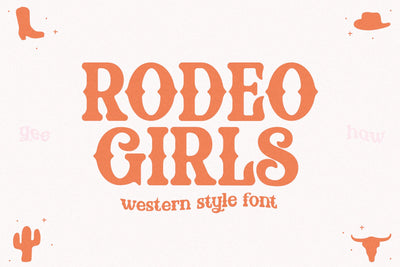
Rodeo Girls - Modern Western Font
Rodeo Girls is a modern western font.
This font is perfect for your svg designs, craft projects, graphic tees, quotes, logos and more!